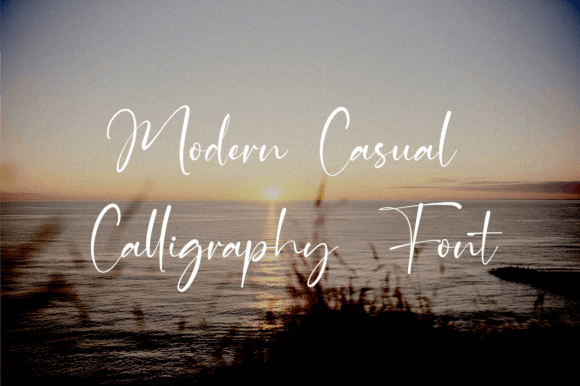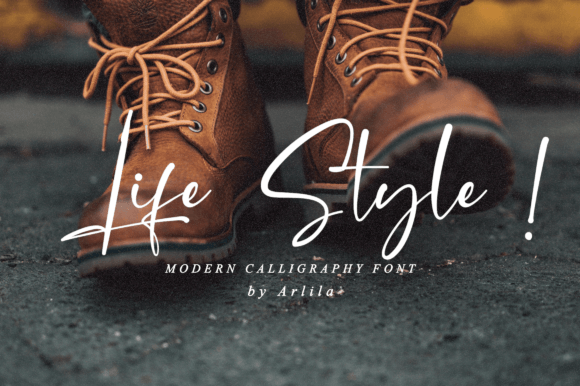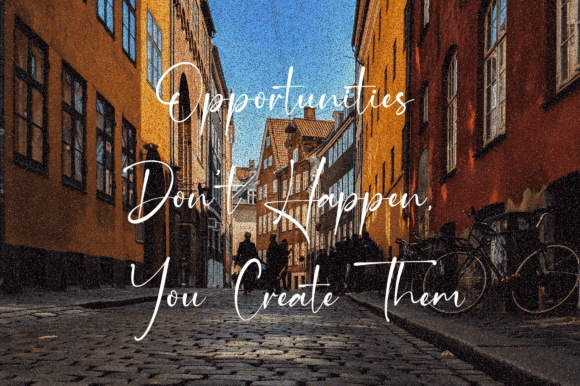
Denmark Citty Font
About Denmark Citty Font
Denmark Citty is a modern, lovely and casual handwritten font perfect for any design you want to create. Add it to each of your creative projects, and notice how they become outstanding!